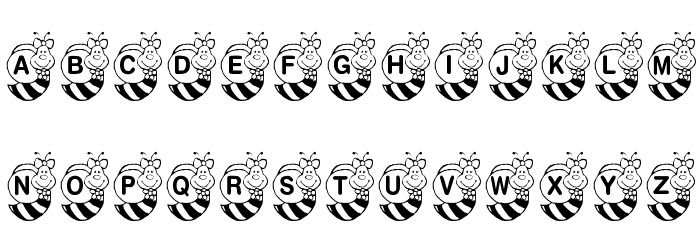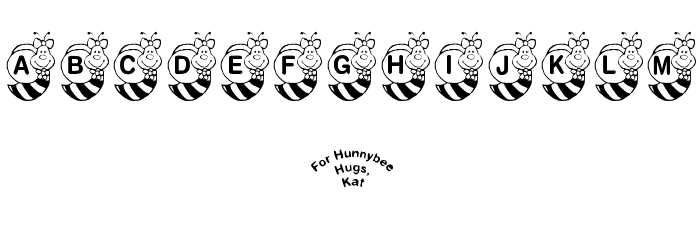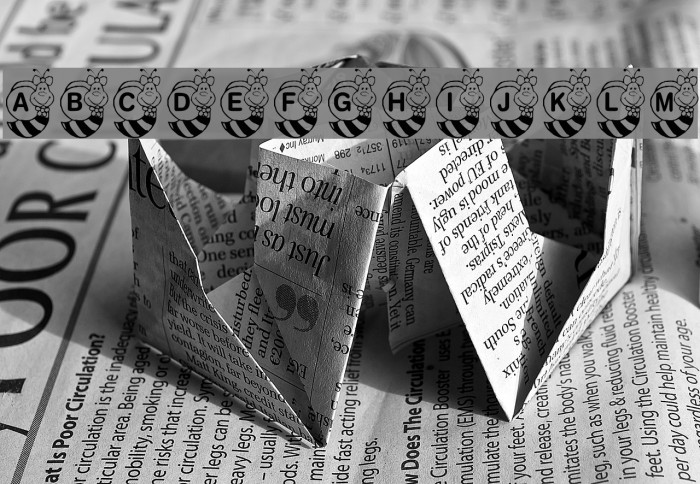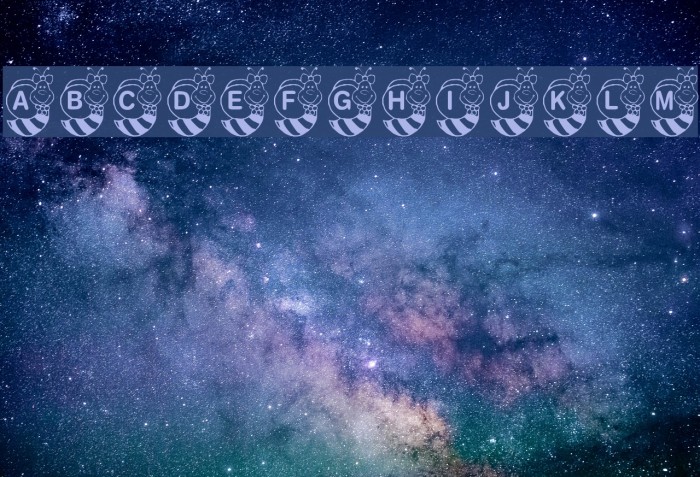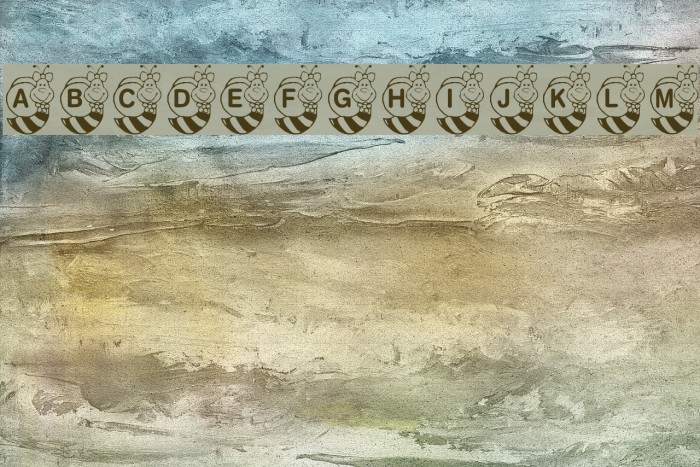
KR Hunnybee Font
This playful and whimsical font features each letter encapsulated within a cartoon bee character, creating a unique and engaging visual experience. The bees are illustrated with friendly expressions and bold, black stripes, adding a sense of fun and creativity. The letters themselves are bold and clear, ensuring readability while maintaining the overall playful theme. This font is perfect for projects that aim to capture attention and convey a sense of joy and lightheartedness.
A playful font with letters inside cartoon bee characters, perfect for fun projects.
- Proposed Projects: Ideal for children's books, educational materials, playful branding, and themed party invitations.
- Overall Style: Whimsical
- Use Case: Headlines, Logos, Decorative text